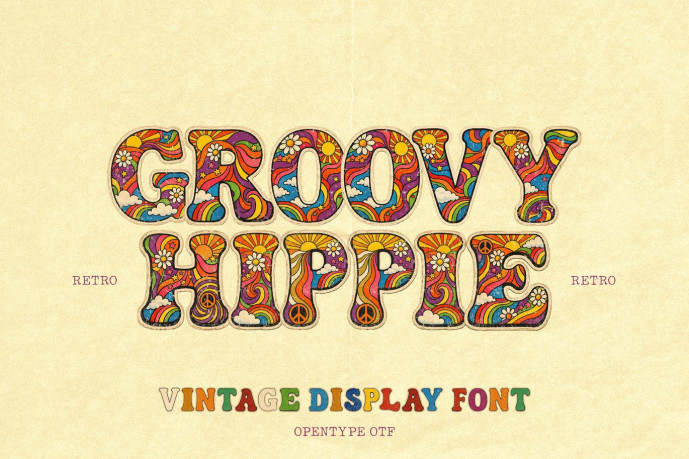
Groovy Hippie Font
Groovy Hippie Font is a vintage-inspired display font that reflects the spirit of the 1960s and 1970s. Each capital letter in the font is decorated with iconic psychedelic motifs (rainbows, sunbeams, daisies, and peace signs), giving your designs a “flower power” vibe.
Whether you’re designing for a music festival, creating retro posters, or simply want to add some “good vibes” to your social media, Groovy Hippie offers a bold, trippy, and authentic vintage aesthetic.